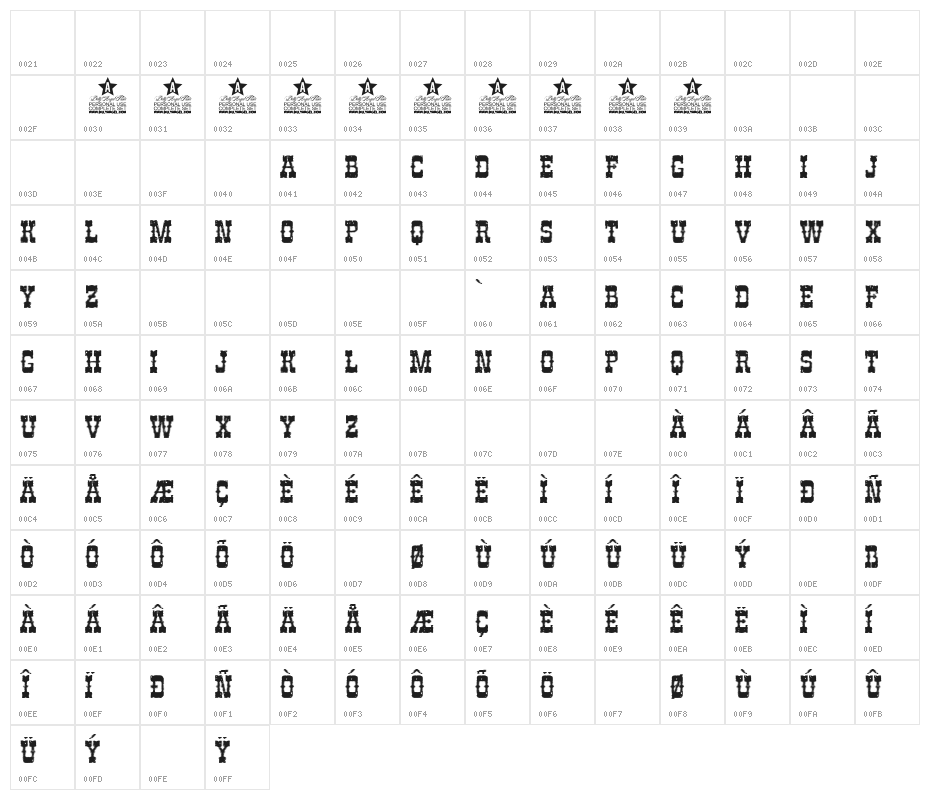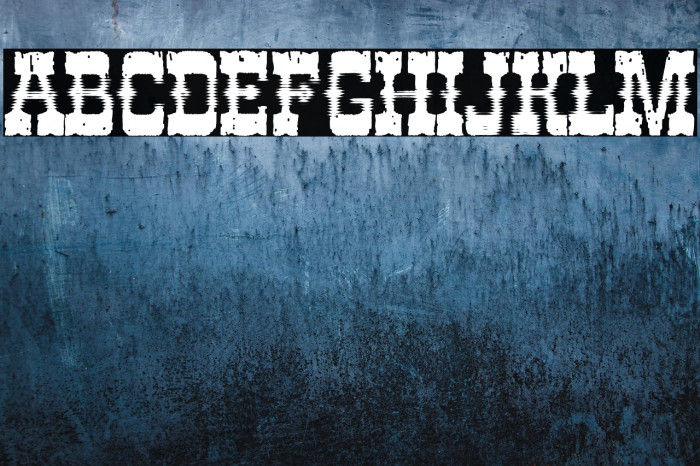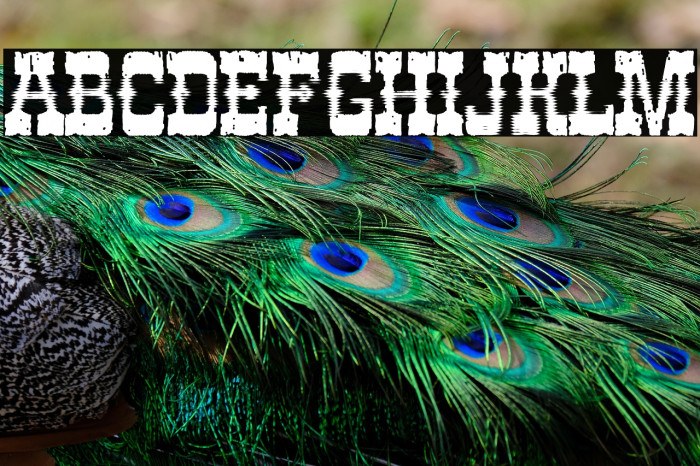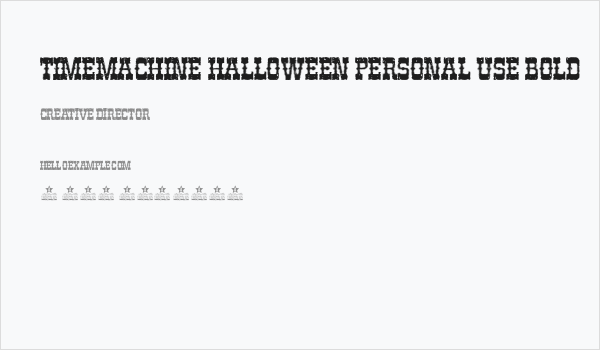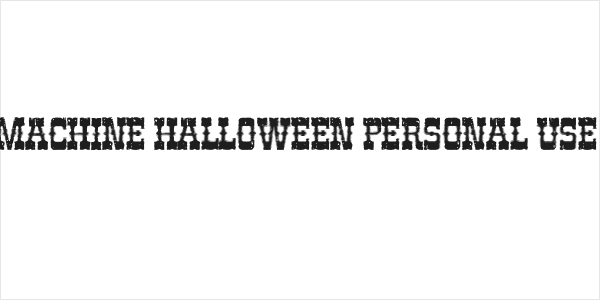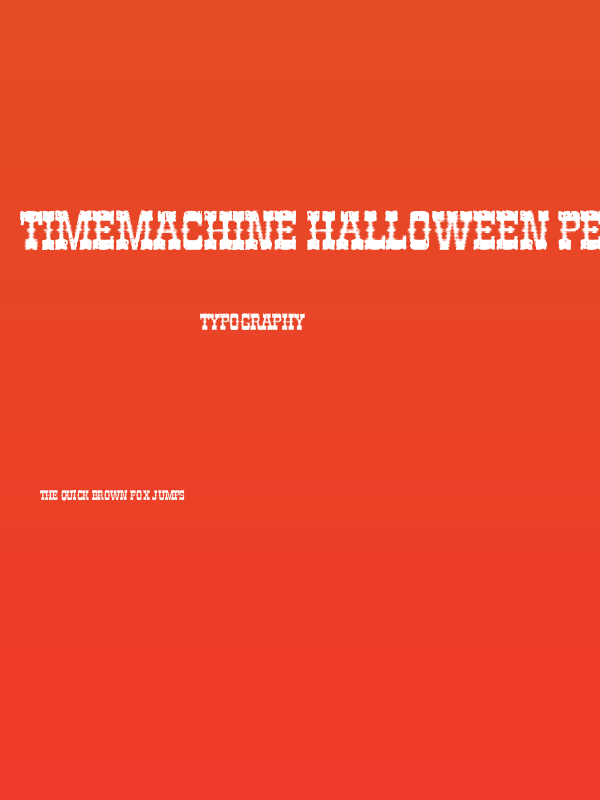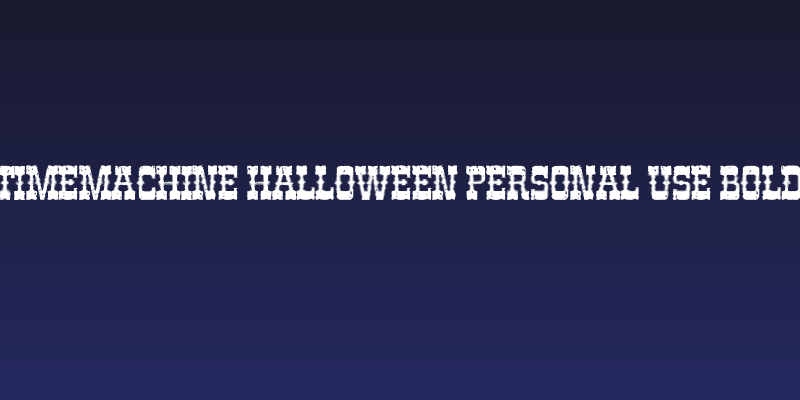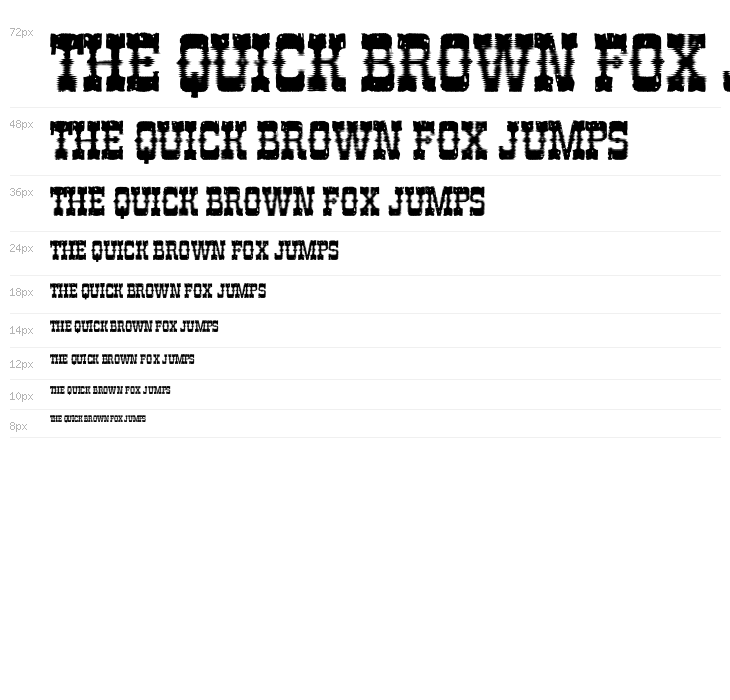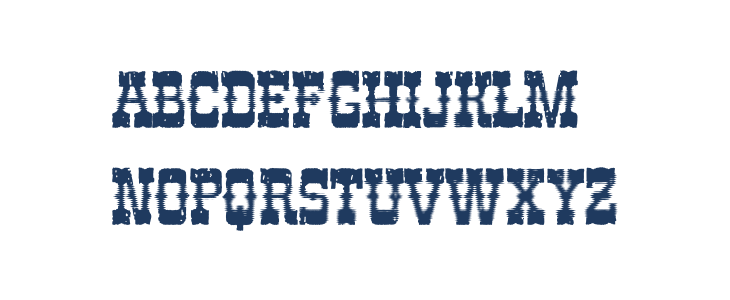
TIMEMACHINE HALLOWEEN PERSONAL USE Bold Font
TIMEMACHINE HALLOWEEN PERSONAL USE Bold Description
This font features a bold and distressed style, reminiscent of vintage horror themes. The characters are heavily textured, giving an eroded and weathered appearance that adds to its spooky aesthetic. The uppercase letters are prominent and maintain a consistent height, while the overall design is highly decorative, making it suitable for thematic and eye-catching displays. The font's unique style is perfect for creating a sense of mystery and intrigue, ideal for Halloween or other eerie-themed projects.
Overall StyleVintage, Decorative
Proposed ProjectsIdeal for Halloween-themed posters, haunted house flyers, spooky event invitations, and horror movie titles.